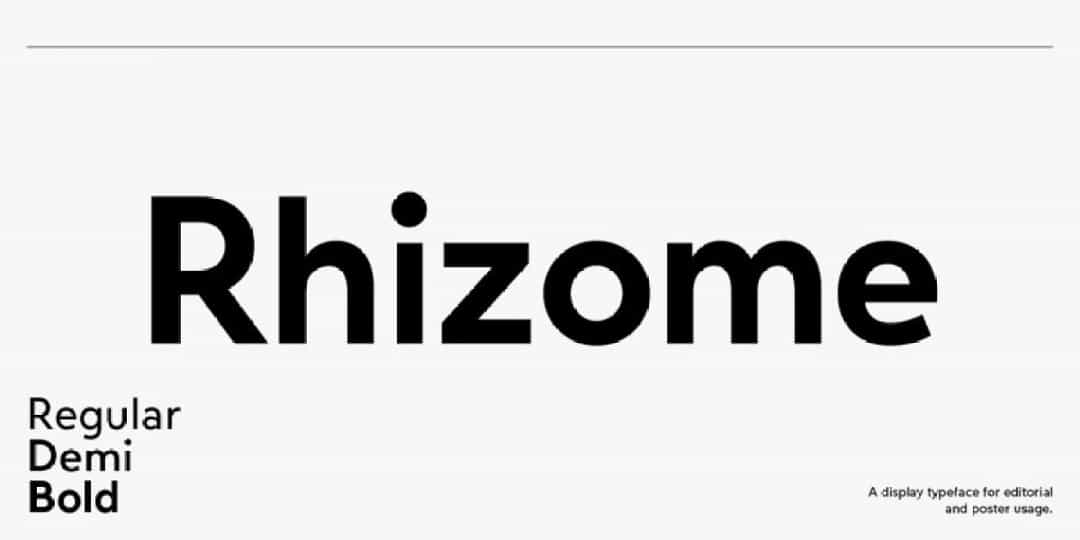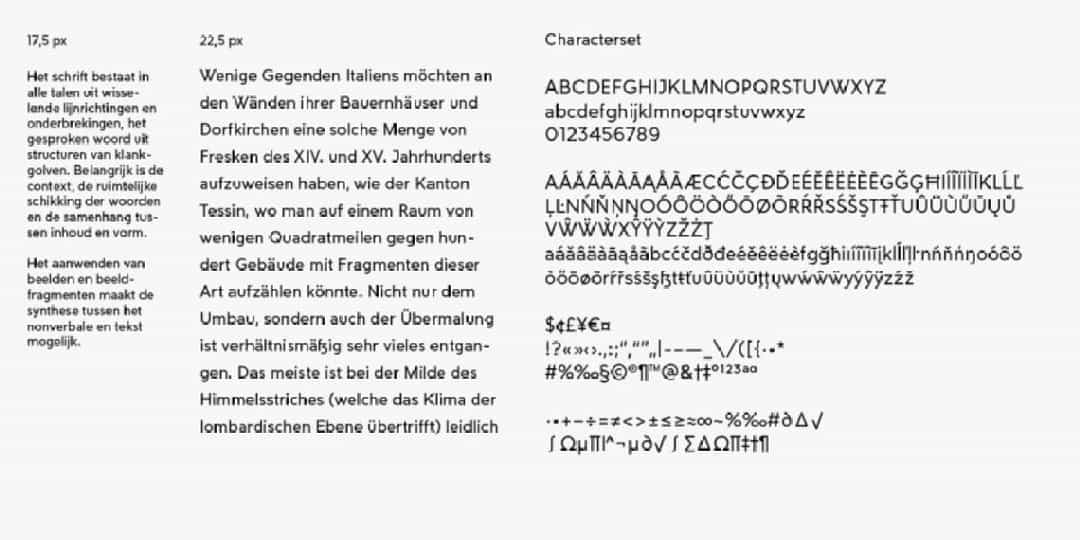
Rhizomeis an innovative sans serif font family that draws its inspiration from geometric forms. A look back into what was considered innovative at the turn of the 20th century is offered in Rhizome, featuring juxtaposing geometric structures with classic proportions, serif font letters, and details created from wedges.